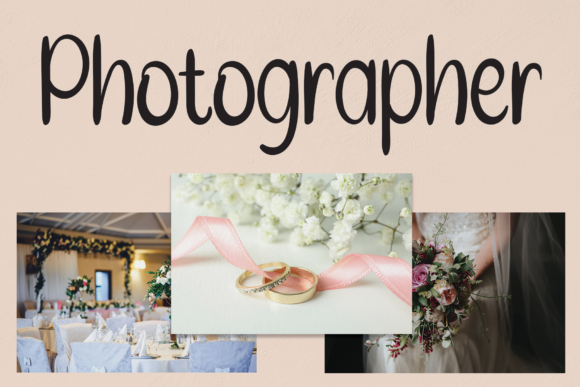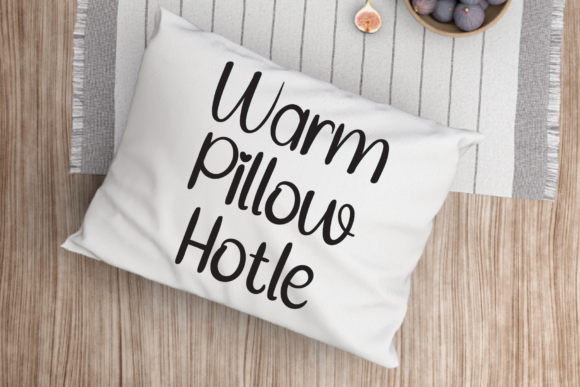
Magnum Font
db-ku.com - Script & Handwritten -- Magnum is a chic script font carefully created with a touch of elegance. Whether you’re looking for fonts for Instagram or calligraphy scripts for DIY projects, this font will turn any creative idea into a true piece of art!